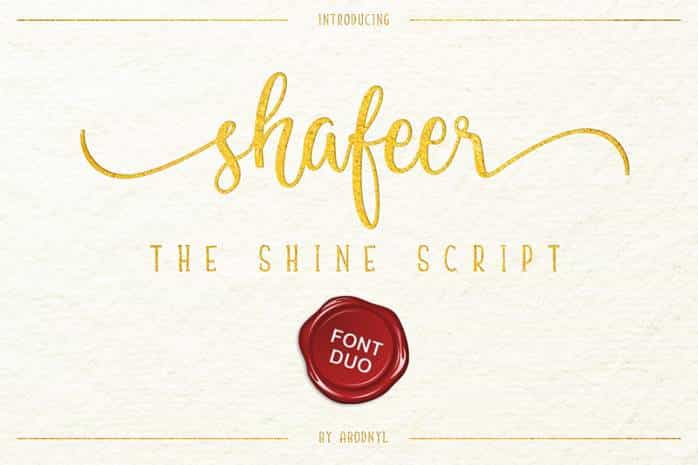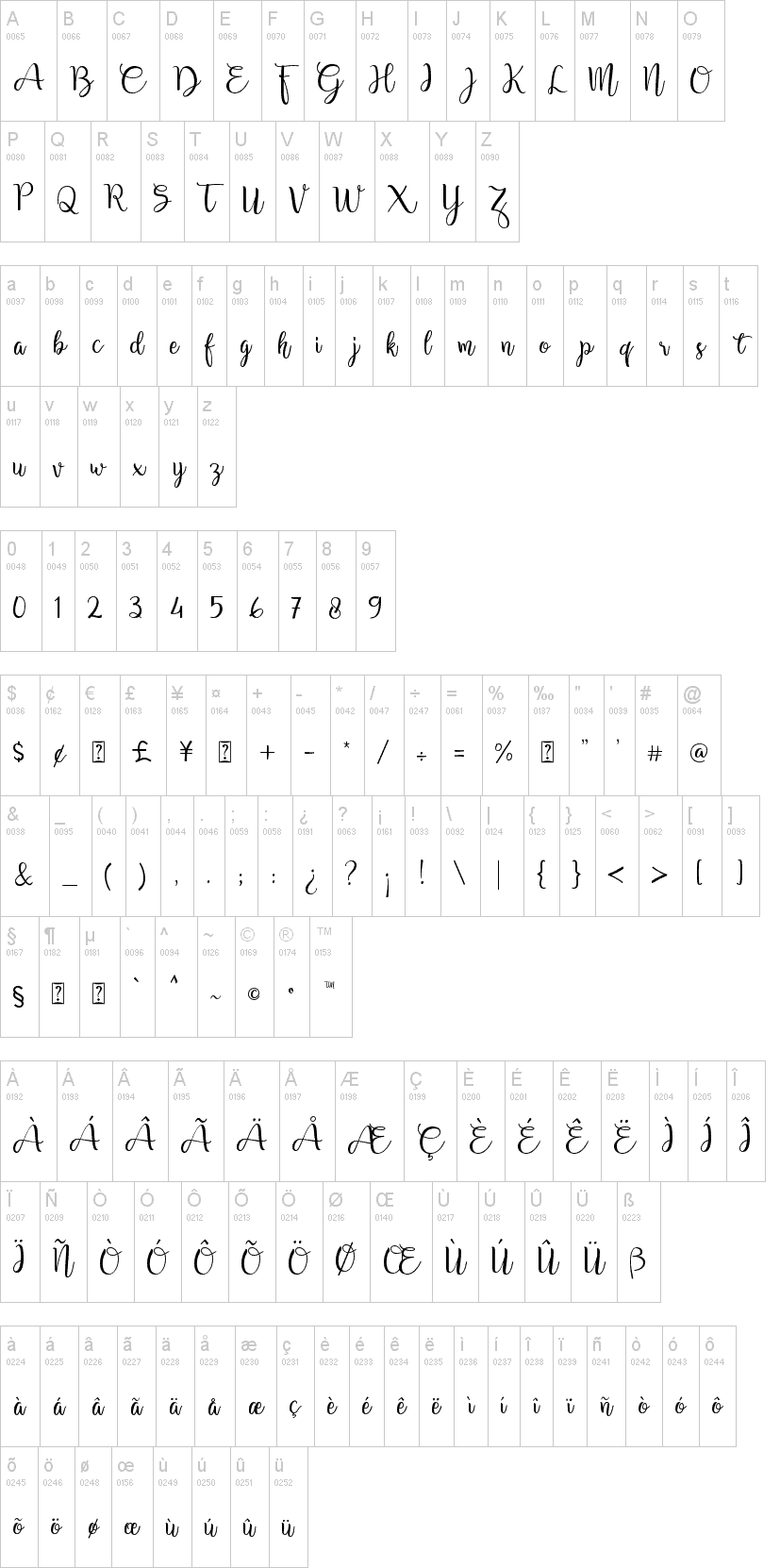
Shafeer the shine script Font Duo, introduces it. Shafeer was designed using Open Type features and consists of an alternate Upper and Lowercase set, Swashes, titling Alternates, Numbers, Punctuation, Ligature and has given multilingual support. By design, this can be used for logotype, branding, photography, invitation, watermark, advertisements, product designs, label, product packaging, and much more!